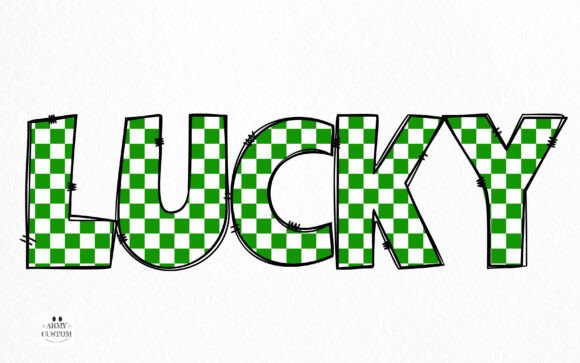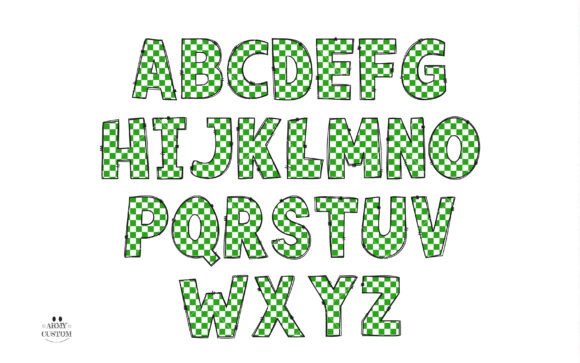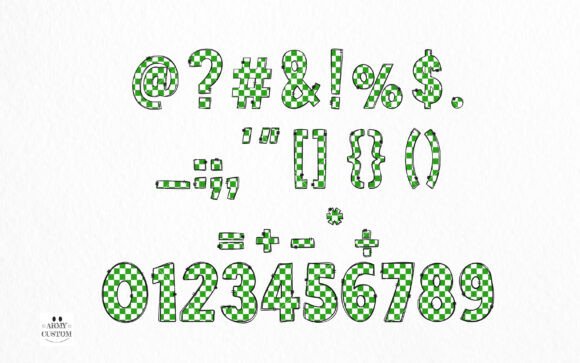
Introducing Checkered Green Font: The Ultimate Celebration Companion
Are you tired of using the same old fonts for your designs? Look no further! We’re excited to introduce the “Checkered Green” font, a vibrant and playful typeface that’s perfect for adding a touch of celebration to your projects. This delightful font combines vivacious green-filled letters with artistically encased sketch-like black outlines, creating an authentic handmade feel that’s sure to bring a smile to your audience’s faces.
The Spirit of Celebration
The “Checkered Green” font is all about embracing the spirit of celebration. Whether you’re designing invitations, party decorations, or social media graphics, this font is guaranteed to add a bold and playful touch to your work. The unique blend of green-filled letters and black outlines creates a lively and exuberant ambiance that’s perfect for special occasions like birthdays, weddings, and holidays.
What Makes Checkered Green Font So Special?
So, what sets the “Checkered Green” font apart from other typefaces? Here are a few key features that make it a standout:
- Vivacious Green-Filled Letters: The green-filled letters in this font are not only visually striking but also evoke feelings of happiness and joy. The vibrant green color is perfect for designs that require a pop of color and a dash of playfulness.
- Artistically Encased Sketch-Like Black Outlines: The black outlines in this font add a touch of sophistication and elegance, while also giving the letters a hand-drawn, sketch-like feel. This unique combination of bold lines and soft curves creates a truly authentic handmade look.
- Boldly Playful and Blissfully Exuberant: The “Checkered Green” font is all about having fun and embracing the spirit of celebration. It’s the perfect choice for designers who want to add a touch of whimsy and playfulness to their work.
The “Checkered Green” font is a versatile typeface that’s perfect for a wide range of design projects, including:
- Party Invitations: Add a touch of celebration to your party invitations with this fun and playful font.
- Social Media Graphics: Use the “Checkered Green” font to create eye-catching social media graphics that are sure to grab attention.
- DIY Crafts: This font is perfect for crafters who want to add a personal touch to their projects, such as handmade cards, gift tags, and decorations.
- Wedding Decorations: The “Checkered Green” font is a great choice for wedding decorations, such as signs, banners, and invitations.
Tips for Using Checkered Green Font
Here are a few tips for using the “Checkered Green” font in your designs:
- Pair it with Neutral Colors: To make the most of this font, pair it with neutral colors like white, black, or gray. This will allow the font to take center stage and make a bold statement.
- Experiment with Different Sizes: Don’t be afraid to experiment with different font sizes to add visual interest to your designs. Larger font sizes can be used for headings, while smaller font sizes can be used for body text.
- Add Texture and Patterns: To add an extra layer of depth to your designs, consider adding texture and patterns. This can be achieved using backgrounds, overlays, or graphics.
In conclusion, the “Checkered Green” font is a unique and versatile typeface that’s perfect for designers and crafters who want to add a touch of celebration to their work. With its vivacious green-filled letters, artistically encased sketch-like black outlines, and boldly playful personality, this font is sure to bring a smile to your audience’s faces. So why not give it a try and see how it can elevate your designs to the next level?